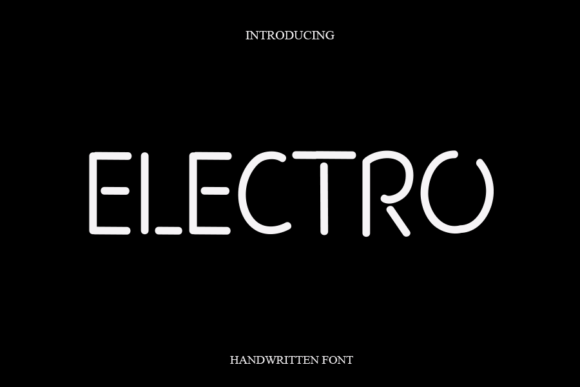
Dive into the realm of typography brilliance with Electro Font, the captivating display font that unlocks a world of creative possibilities. Designed by the talented janurmasahmad, Electro exudes a minimalist charm and a neat composure that effortlessly elevates your designs. Prepare to be mesmerized as you witness how seamlessly Electro adapts to a vast spectrum of projects, adding a touch of sophistication and uniqueness to each one. Unleash your imagination and let Electro ignite your creative spark, transforming your ideas into remarkable masterpieces.
As a display font, Electro possesses an innate ability to command attention and communicate messages with clarity and impact. Its clean lines and sharp edges create a visually striking presence that draws the eye and captivates the senses. Whether you're crafting logos, posters, social media graphics, or any other visual content, Electro serves as the perfect medium to convey your message with maximum impact.
Step into a world where creativity flourishes and boundaries dissolve as you explore the limitless potential of Electro Font. Its versatility knows no bounds, allowing you to effortlessly blend it with a diverse range of design aesthetics. From the sleek and modern to the playful and whimsical, Electro seamlessly adapts, becoming an integral part of your creative vision. Experience the joy of creating designs that resonate with your audience, leaving a lasting impression that lingers in their minds.
Immerse yourself in the world of Electro Font, where typography transforms into an art form. Its meticulously crafted characters dance across the screen, inviting you to explore the depths of your creative potential. With Electro, the ordinary becomes extraordinary, and the mundane is transformed into the magnificent. Embrace the power of Electro and watch as your designs take flight, reaching new heights of visual splendor.